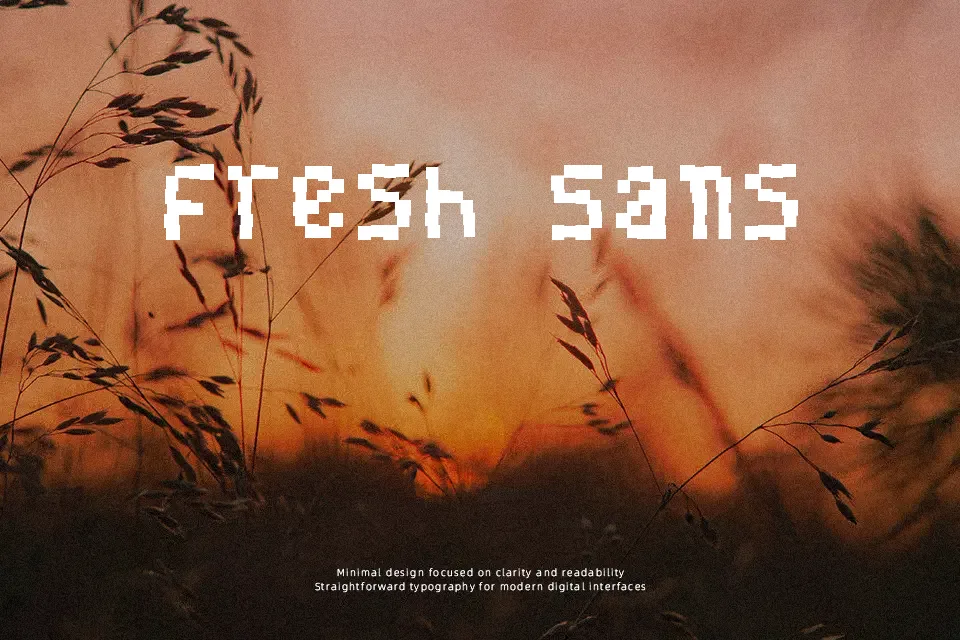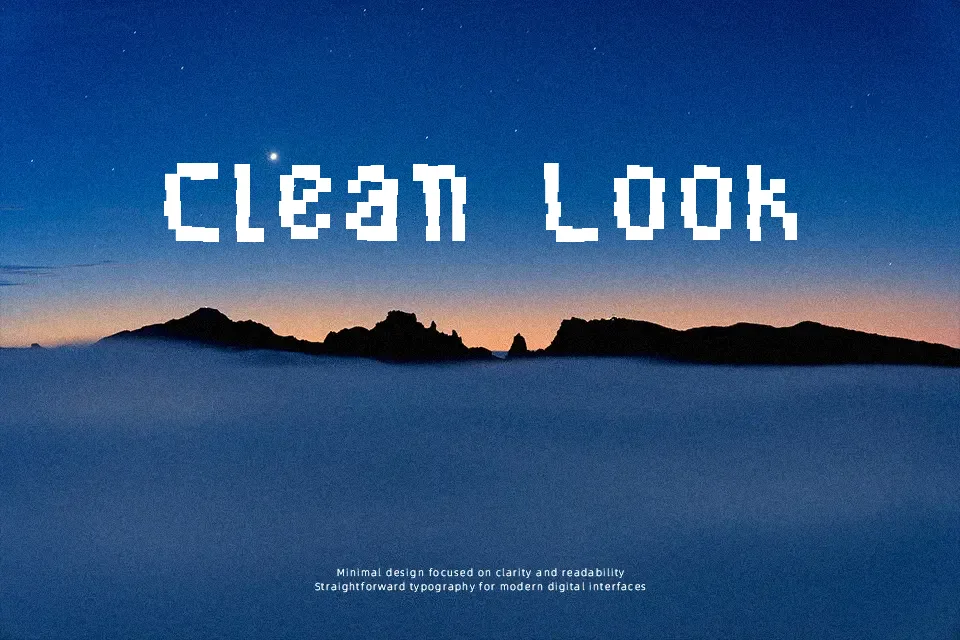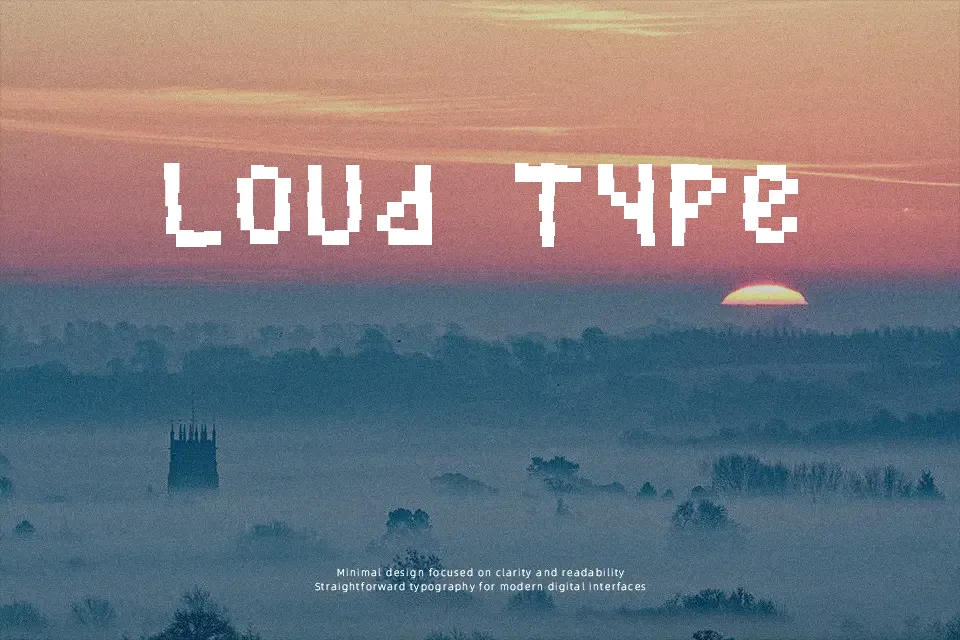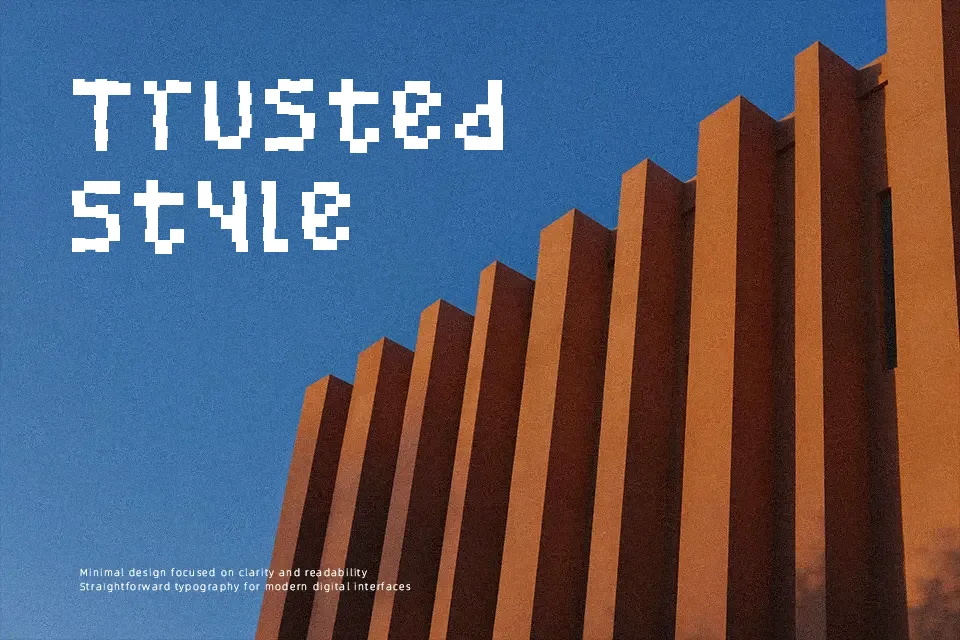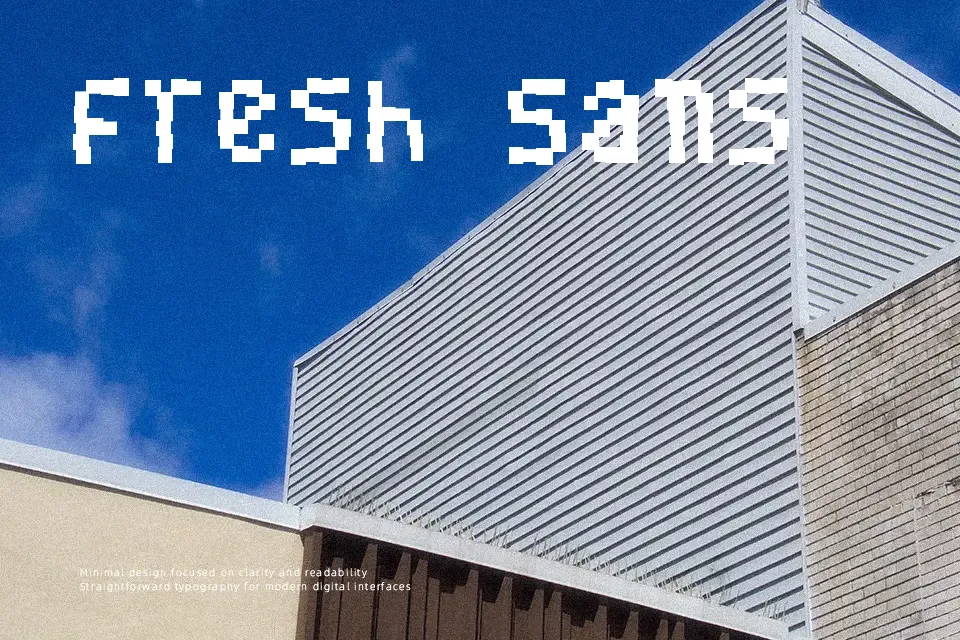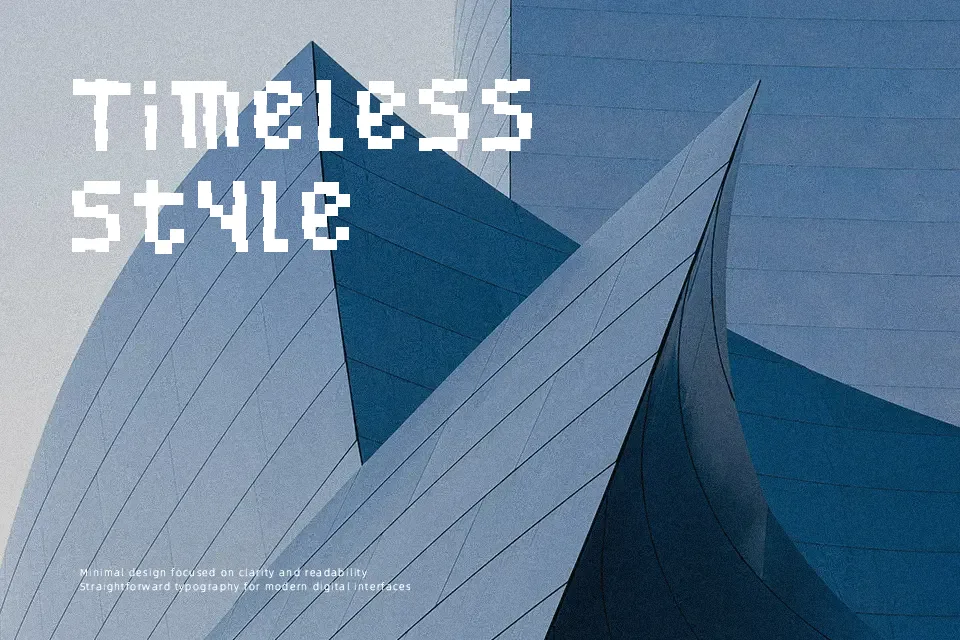
Bugged Bit Font
Bugged Bit Font leans into jagged, irregular outlines and fractured shapes, as if each character has been corrupted by a digital glitch. Strokes feel chunky and pixel-based, but the distortion pushes it beyond a neat grid into something more chaotic and expressive. Spacing is tight and uneven, so text blocks quickly become dense textures rather than calm reading lines, which suits headlines and short words much more than body copy. In practice, it shines on gig posters, zines, album covers, and gaming visuals where you want typography to look noisy and a bit uncomfortable, while it tends to fight against clean branding systems or minimalist UI. Compared with classic bitmap arcade fonts, Bugged Bit feels rougher and less restrained, trading legibility at small sizes for a stronger, more aggressive personality.
glitchy music or club posters and flyers
underground gaming or hacker-themed graphics
album covers and visual identities for experimental artists
short statement headlines on edgy social media posts
long paragraphs or interface text that must be quickly readable
formal branding for corporate or minimalist products
small-size captions, subtitles, or accessibility-focused layouts
elegant wedding, fashion, or luxury-oriented projects
Perfect for gaming, headline, and music, with a artistic and decorative style.